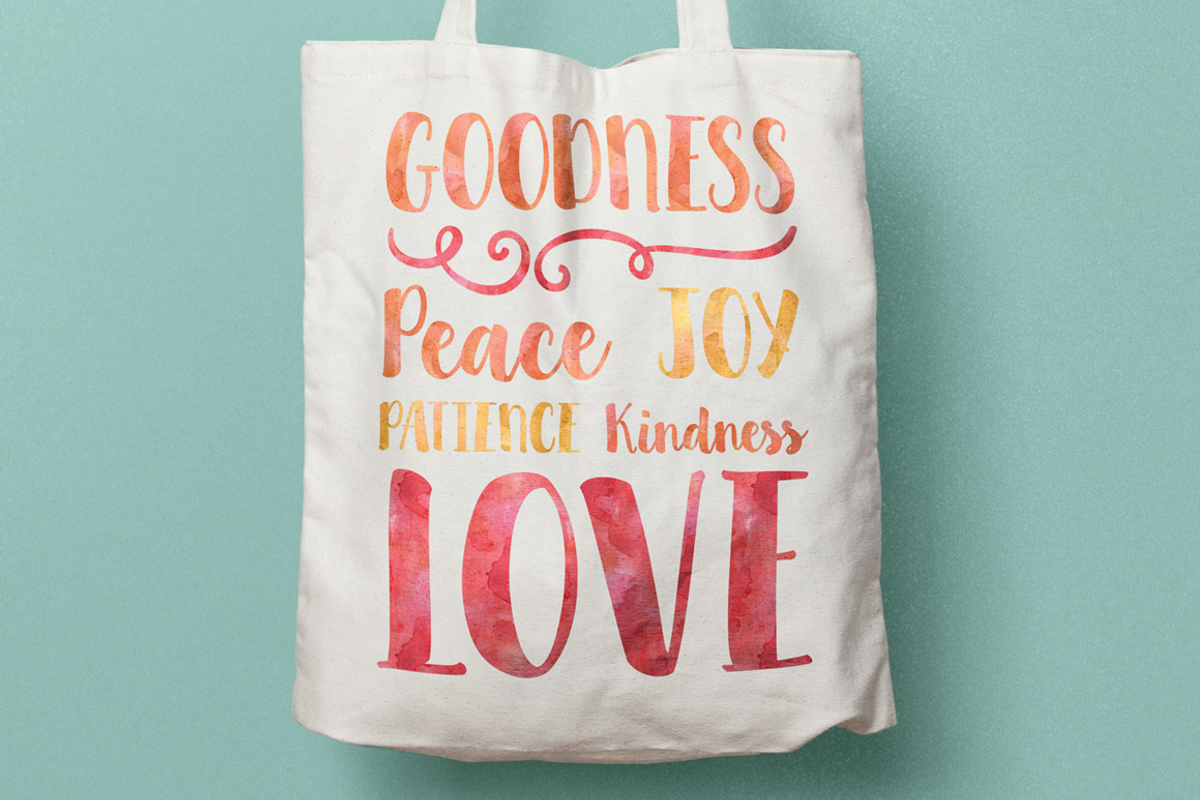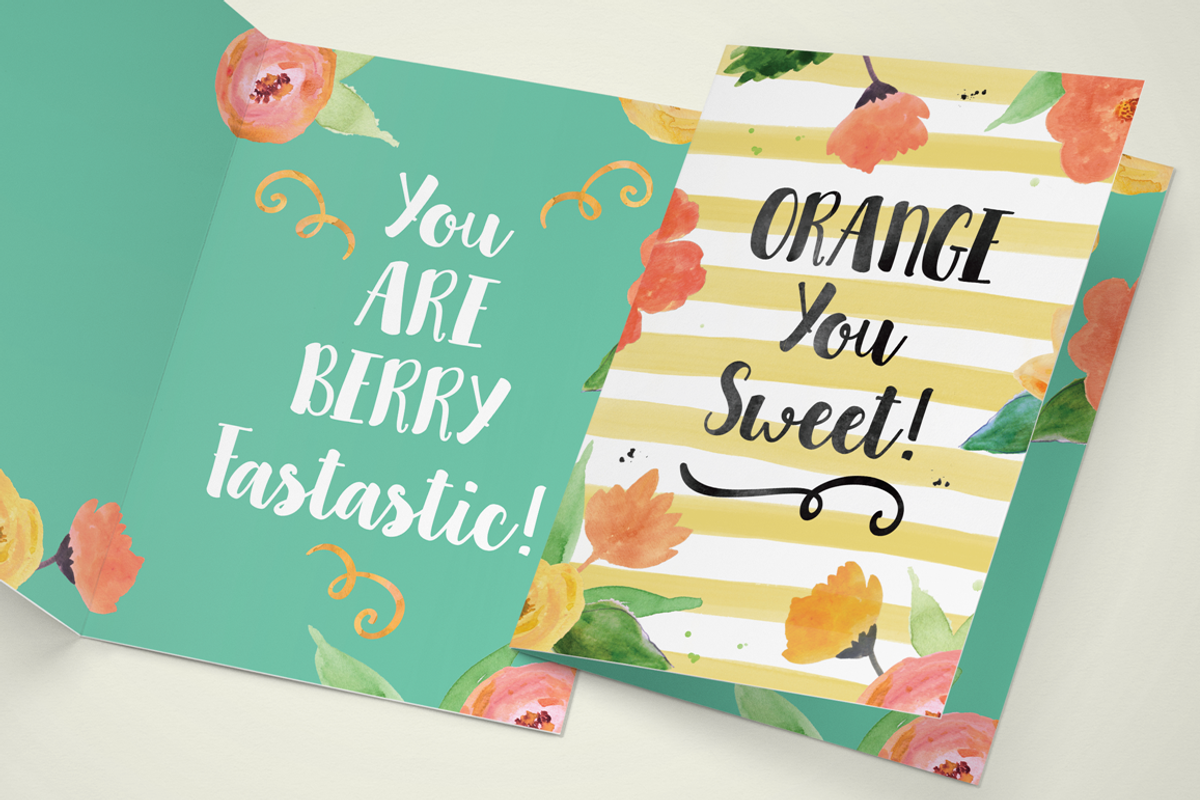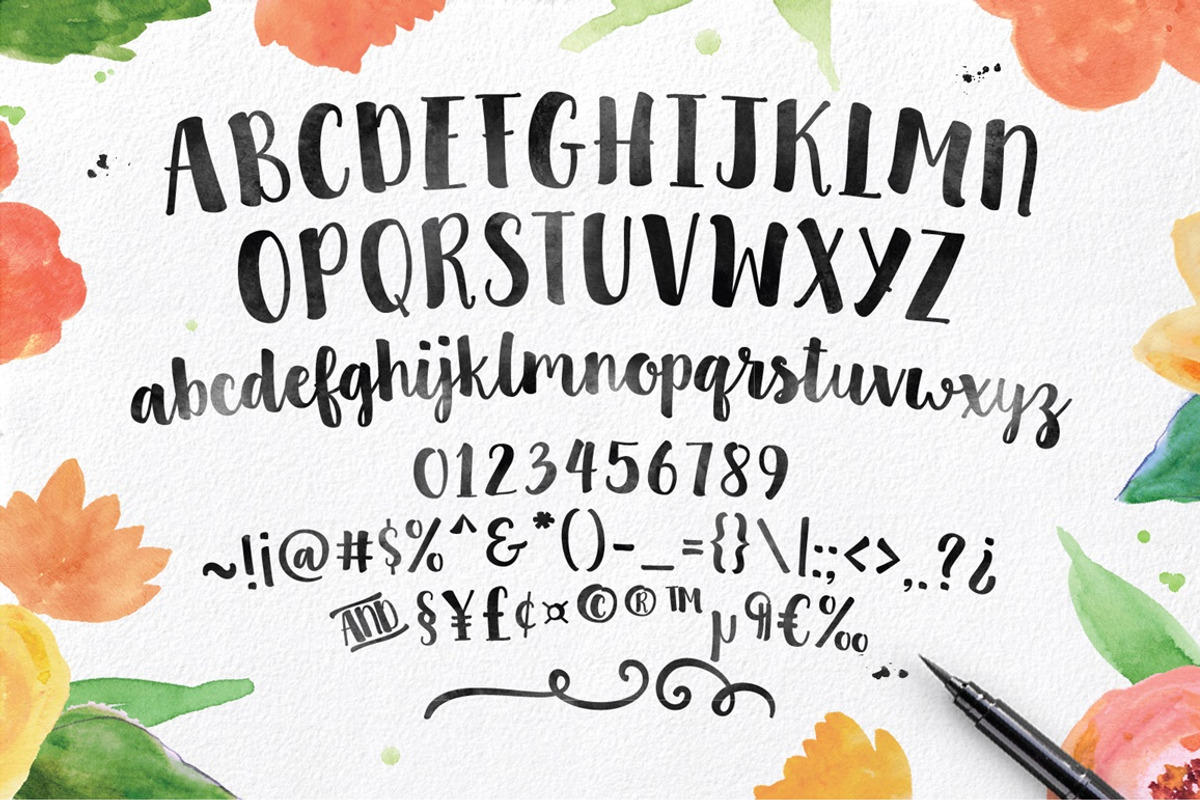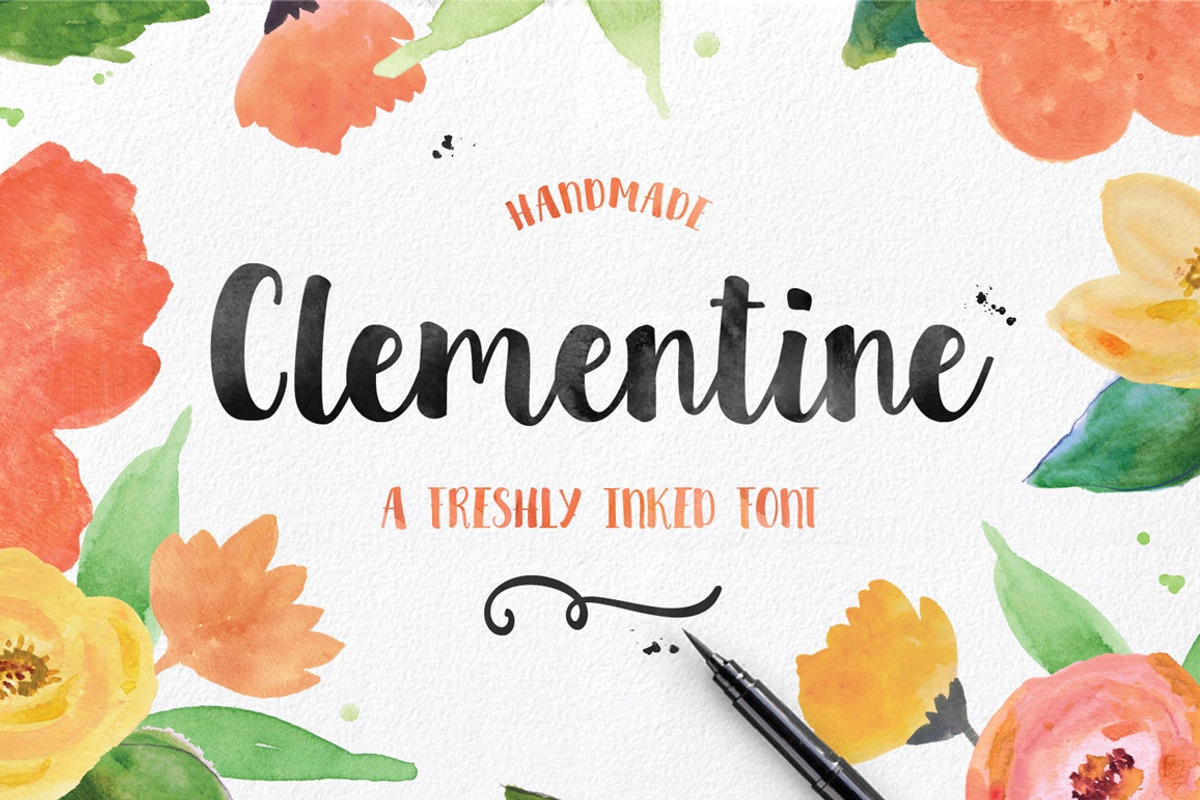
Clementine Script
Clementine Script is a tangy new hand crafted typeface. Multi purpose use as is or really sweet in all caps. This script was inspired and designed with a large chisel felt marker. Bold characters make your logo stand out. Perfect for signage, posters, logos, headlines, and more!
Multi-lingual Glyphs, International & Special Punctuation
(Latin-1 Supplement) ÀÁÂÃÄÅÆÇÈÉÊËÌÍÎÏÝ ÑÒÓÔÕÖØŒÙÚÛÜ ß àáâãäåæçèéêëìíîïñòóôõöðøœùúûüýÿ
(Latin Extended-A) ĀāĂ㥹ĆćĈĉĊċČčĎďĐĒēĔĕĖėĘęĚěĜĝĞğĠġ ĤĥĨĩĪīĬĭĮįİıĹ弾ĿŀŃńŇňʼnŌōŎŏŐŐőŒœŔŕŘř ŚśŜŝŠšŤťŨũŪūŬŭŮůŰűŲųŴŵŶŷŸŹźŻżŽž